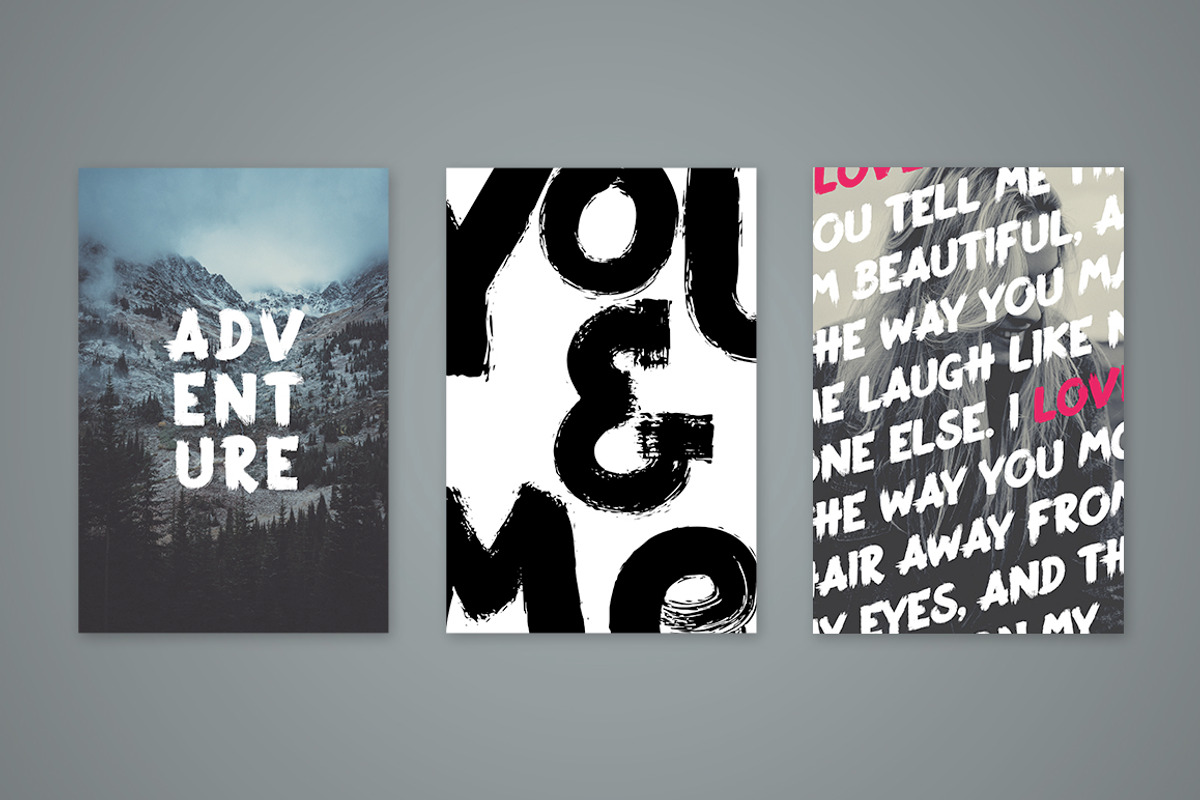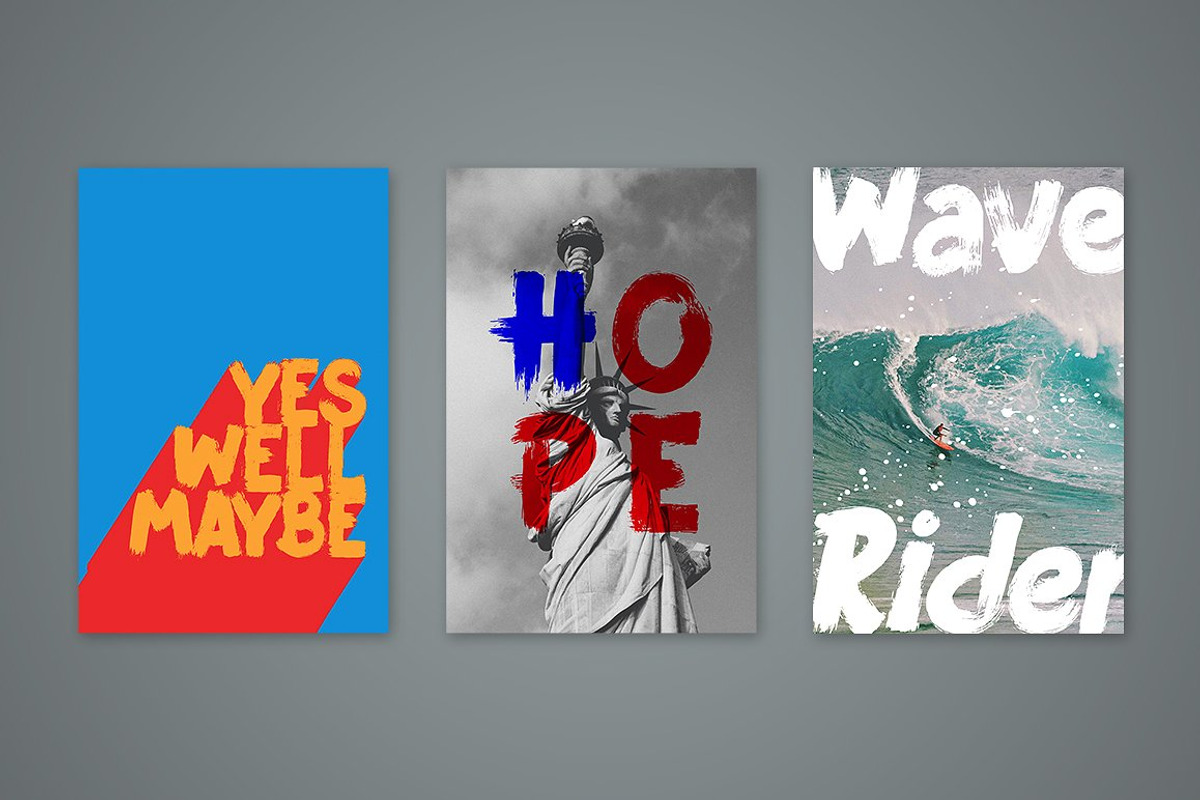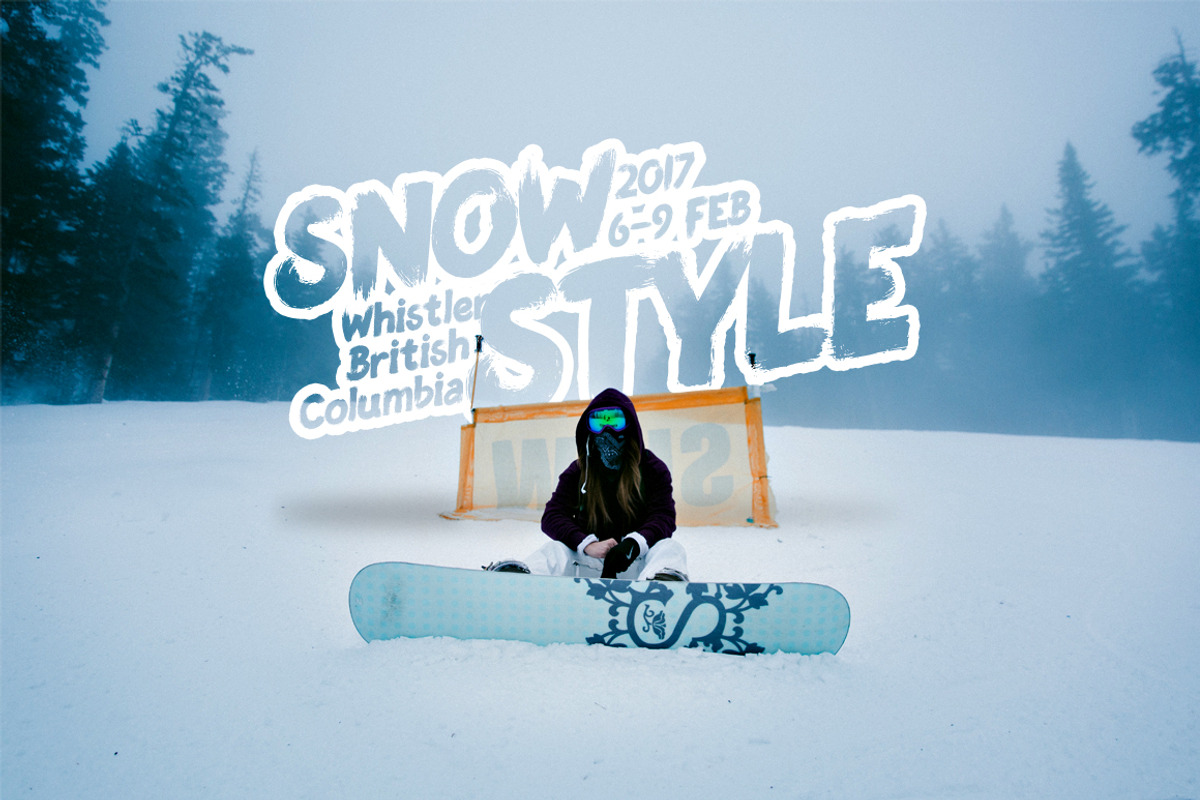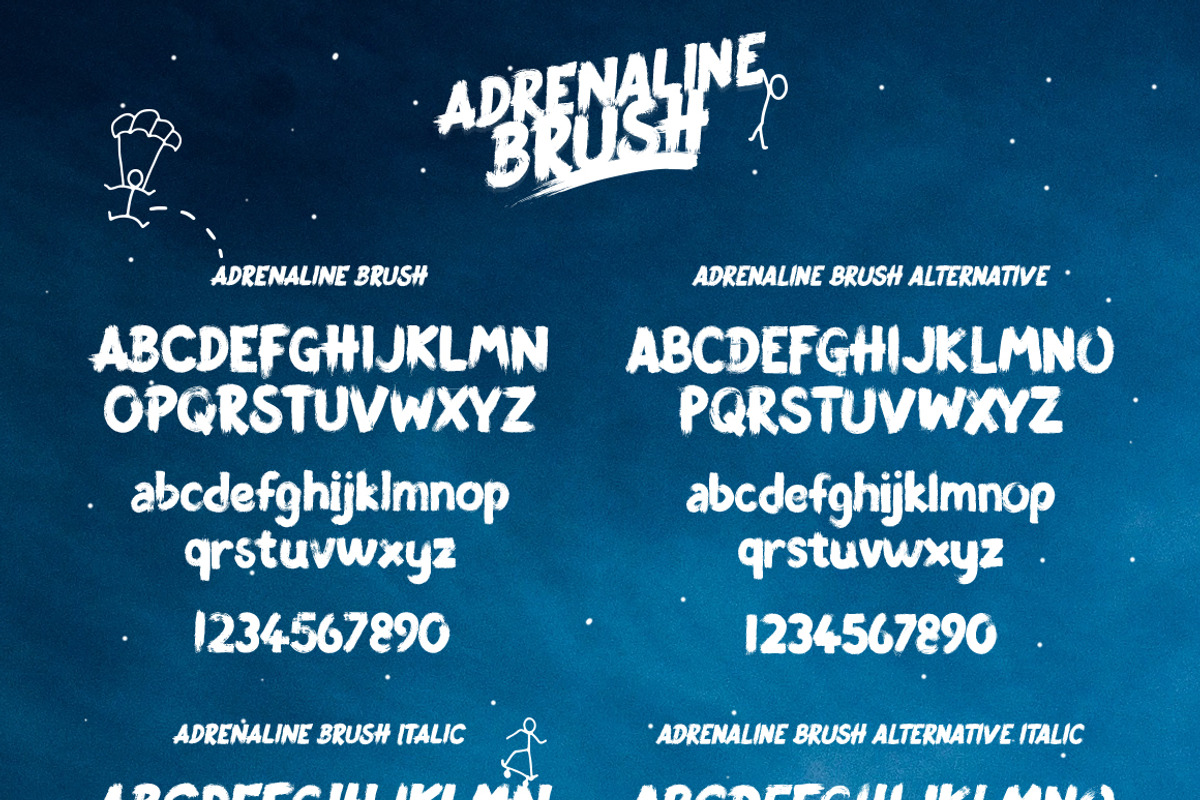
Adrenaline Brush Typeface
Adrenaline Brush Typeface by Ian Barnard is a font selected for branding, posters, packaging, typography.
- Adrenaline BrushComes with 2 versions of the upper / lowercase / numerals, so that you can get that genuine hand brushed look.
- Upper & Lowercase plus numbers.
Why Adrenaline Brush Typeface is worth a look
Adrenaline Brush Typeface by Ian Barnard fits naturally into Branding, posters, packaging, typography.